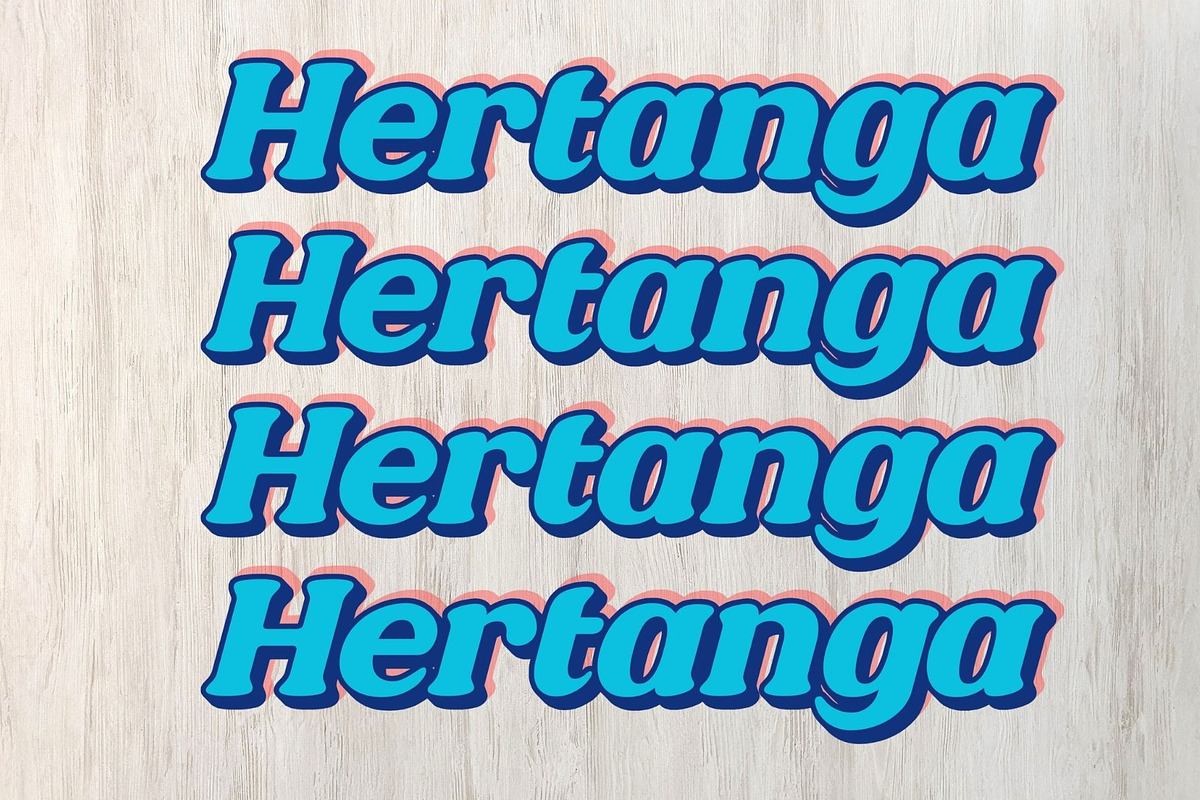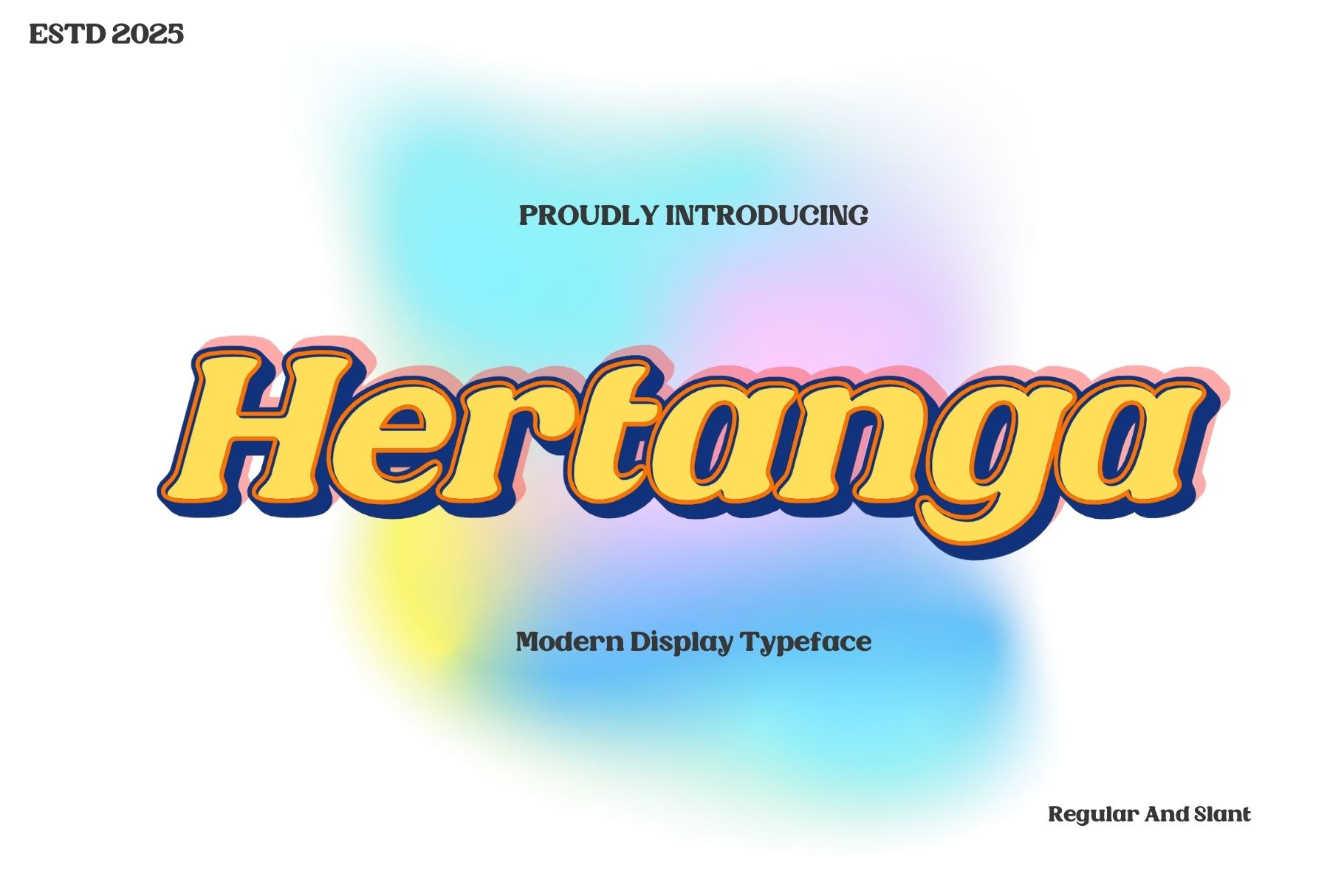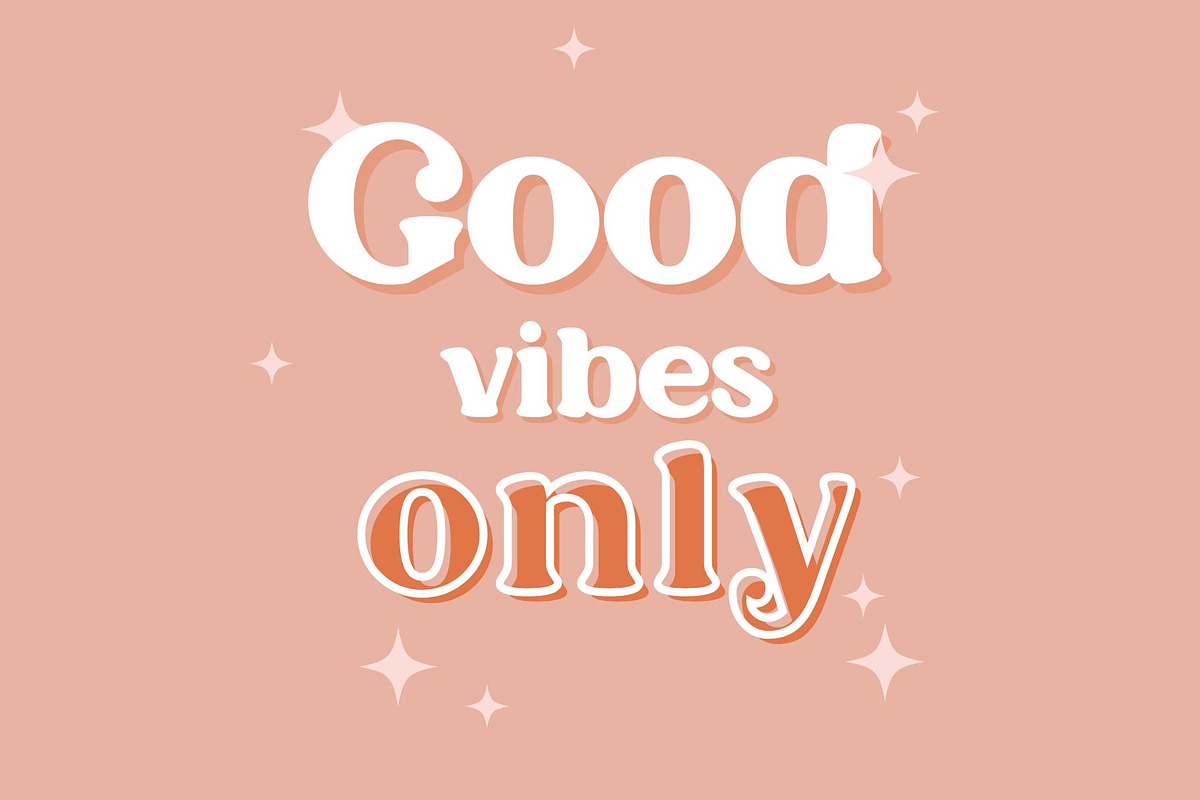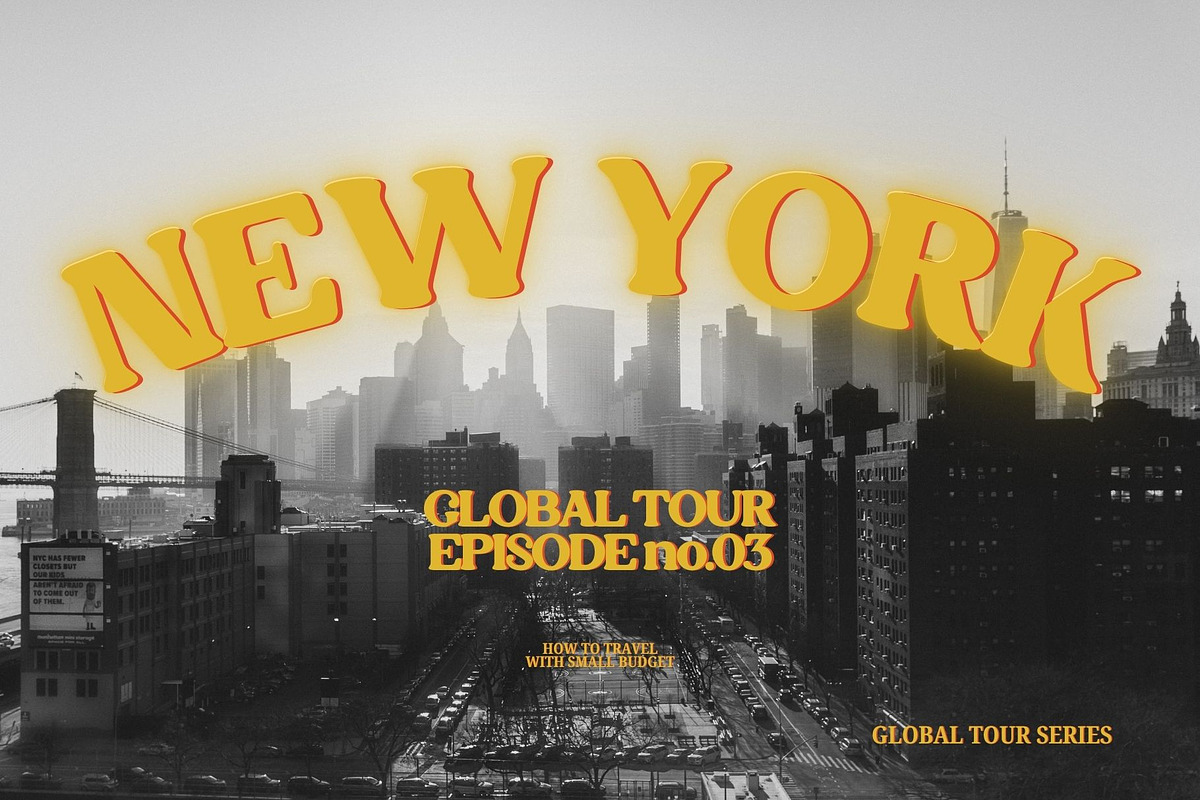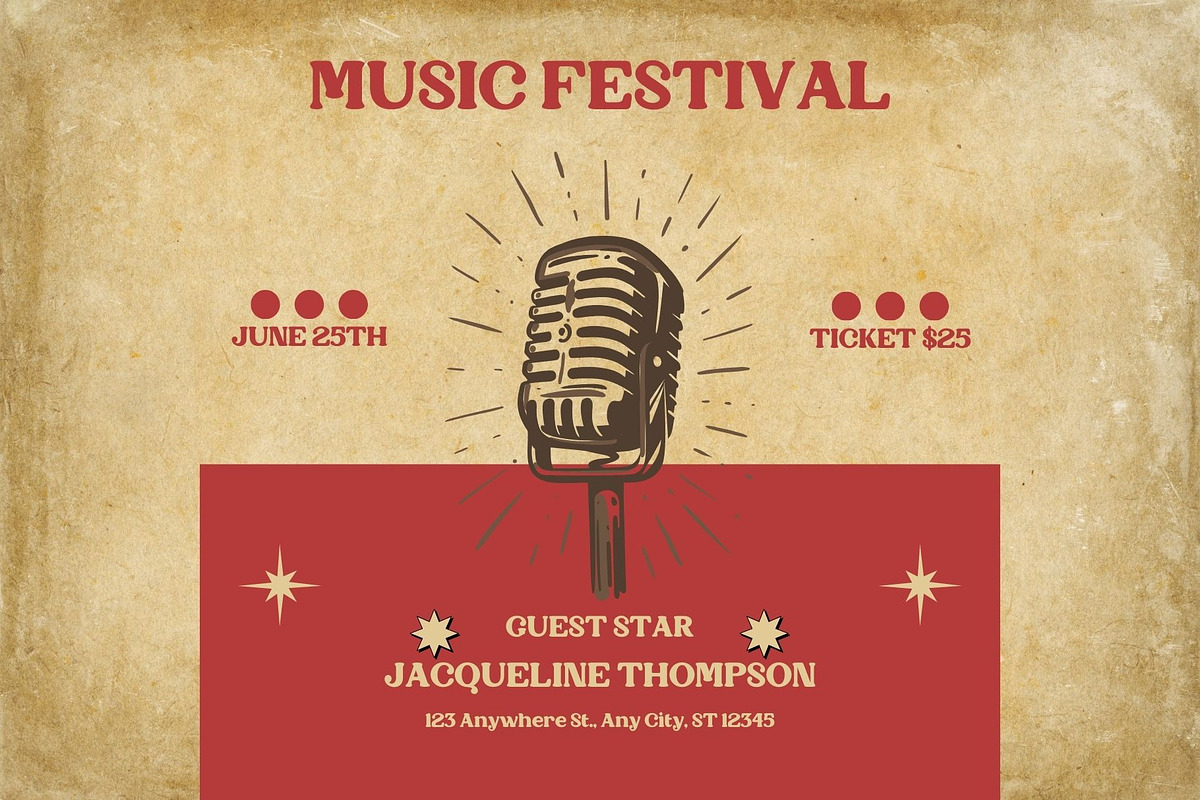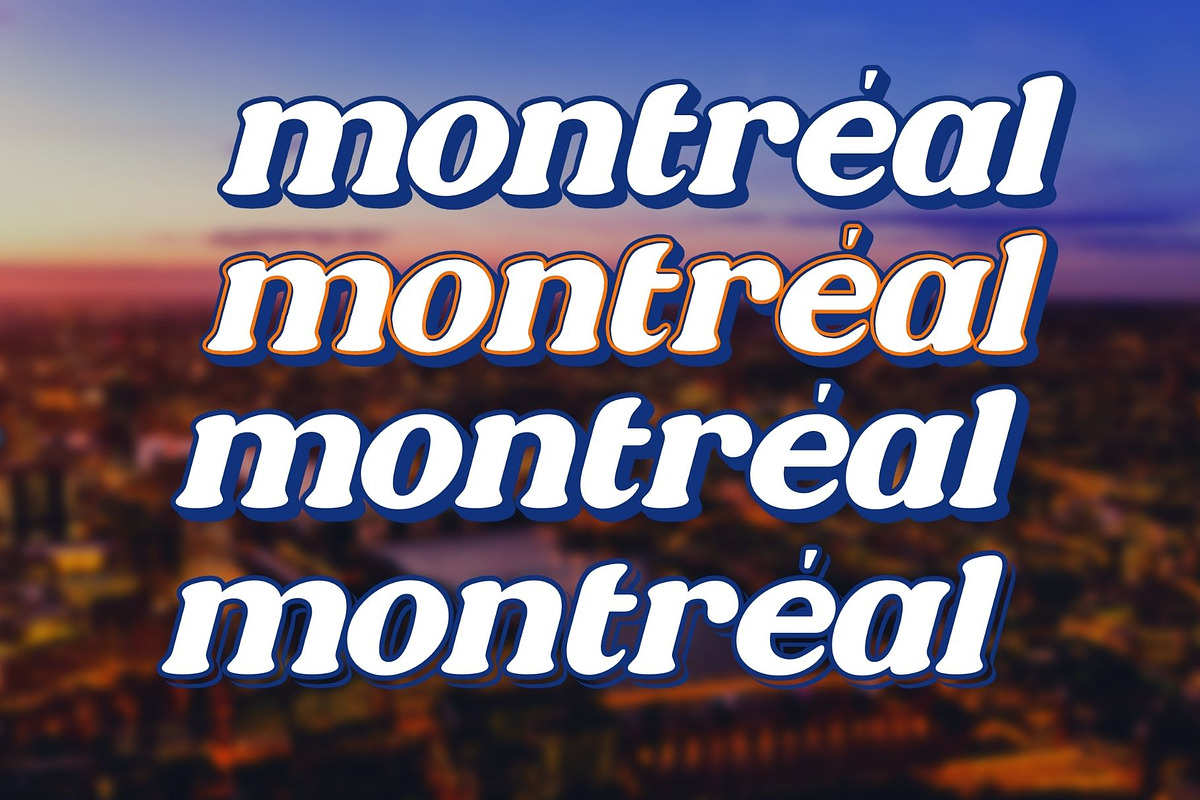
Hertanga-Modern Display Typeface
Hertanga Font is a charming handwritten serif typeface that exudes elegance with a playful twist. This font comes in two styles – Regular and Slant, so you can mix and match for the perfect look. Hertanga also includes ligatures and alternate characters, giving you plenty of options to create eye-catching designs. Plus, with multilingual support, it’s ready to bring your work to a global audience. Perfect for modern or retro-themed designs, whether it’s a trendy menu, standout social media post, food branding, packaging, poster, and more